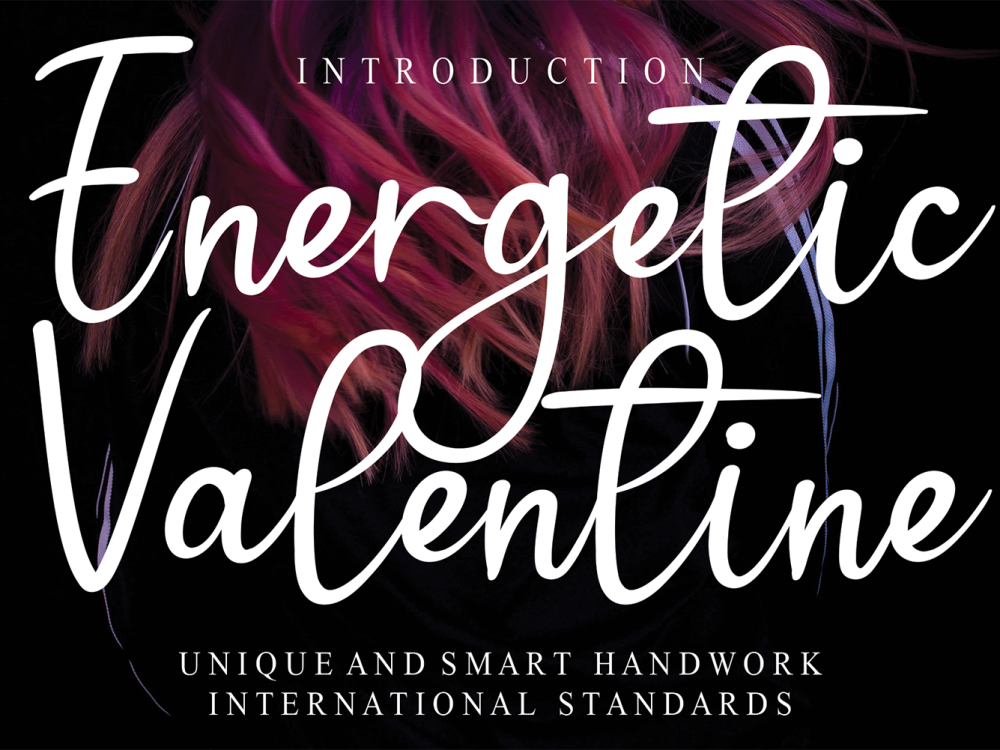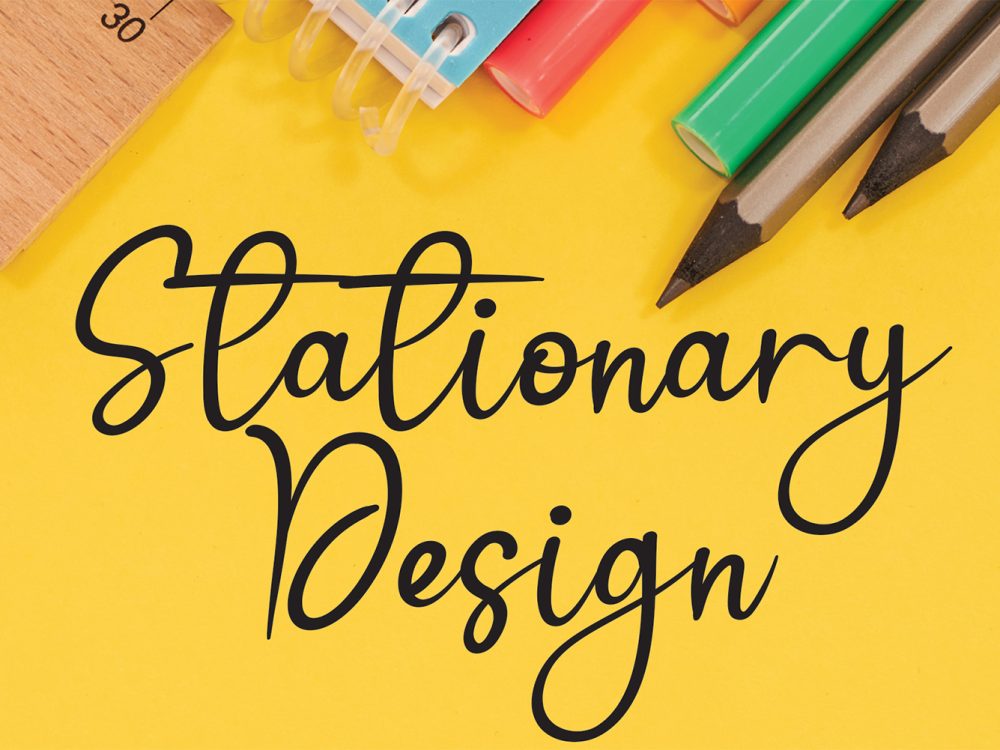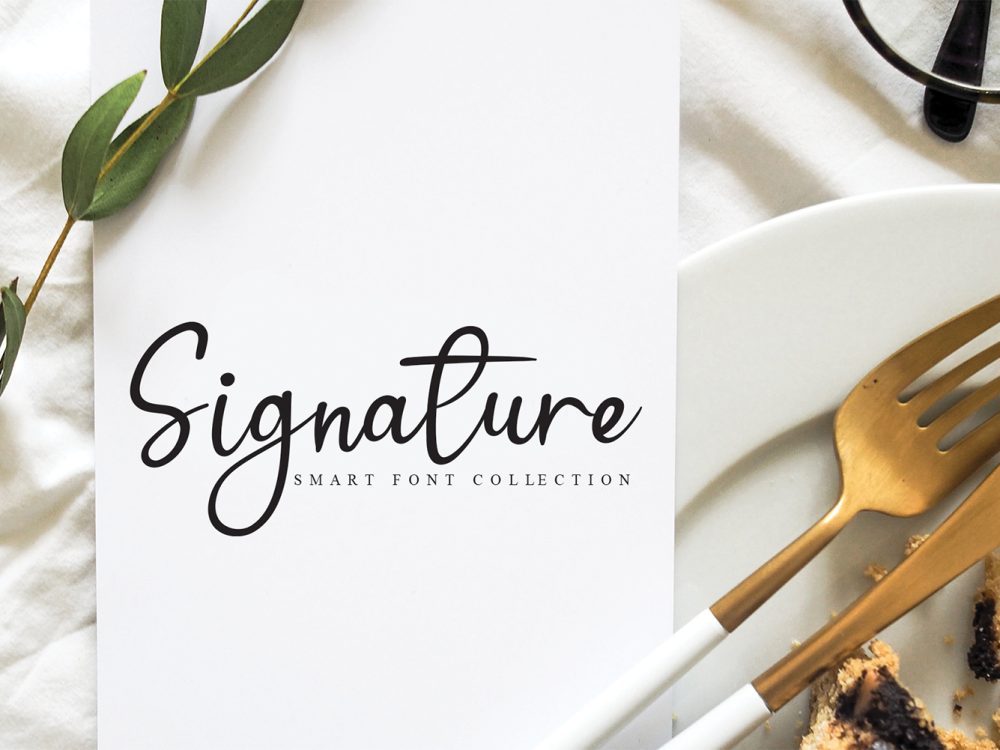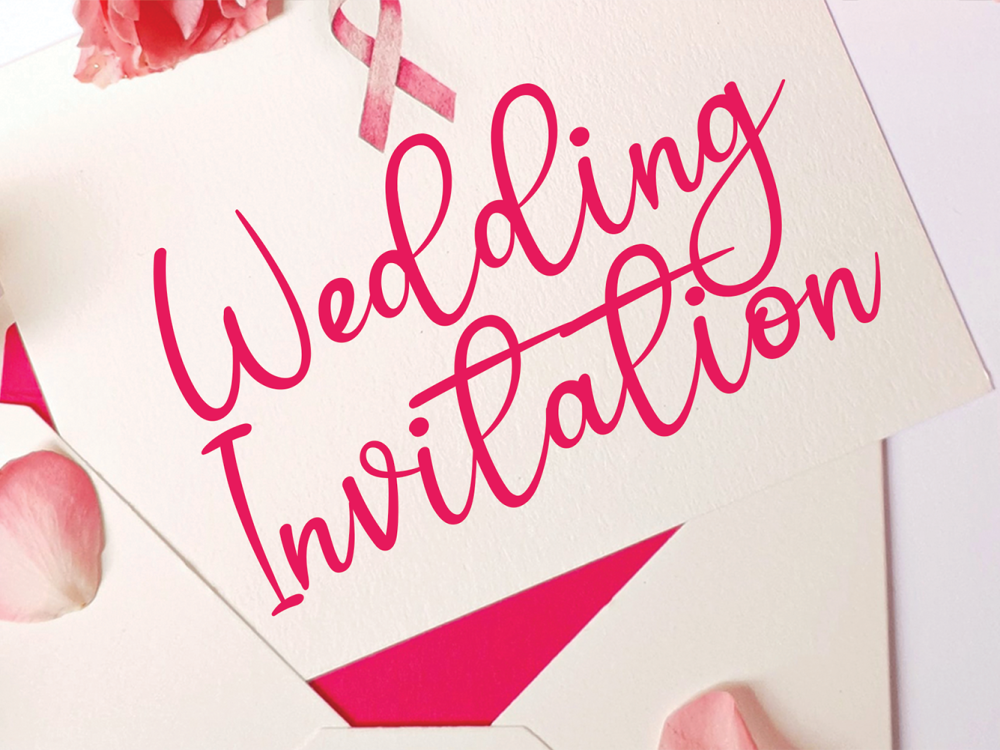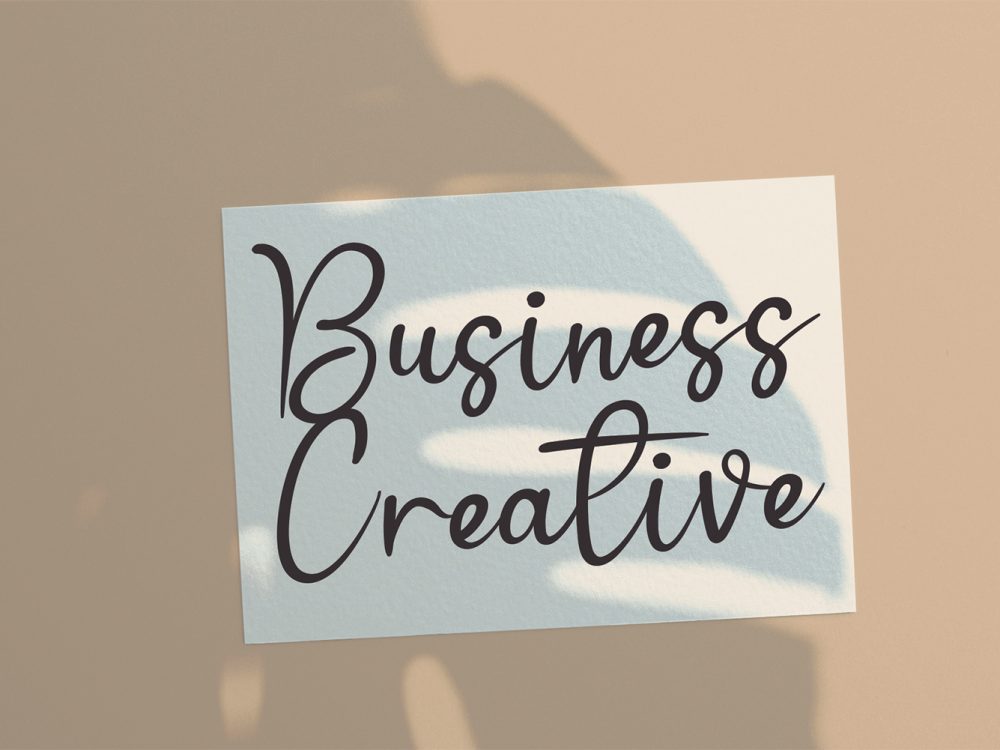
Energetic Valentine Free Font
Energetic Valentine embodies delicacy and elegance in a handwritten font. With its unique and impeccably rounded letters, this font attains the status of a true masterpiece. Embrace its exceptional versatility and let its charm infuse your designs with magnificence. If you like it don’t forget to check out the full version.